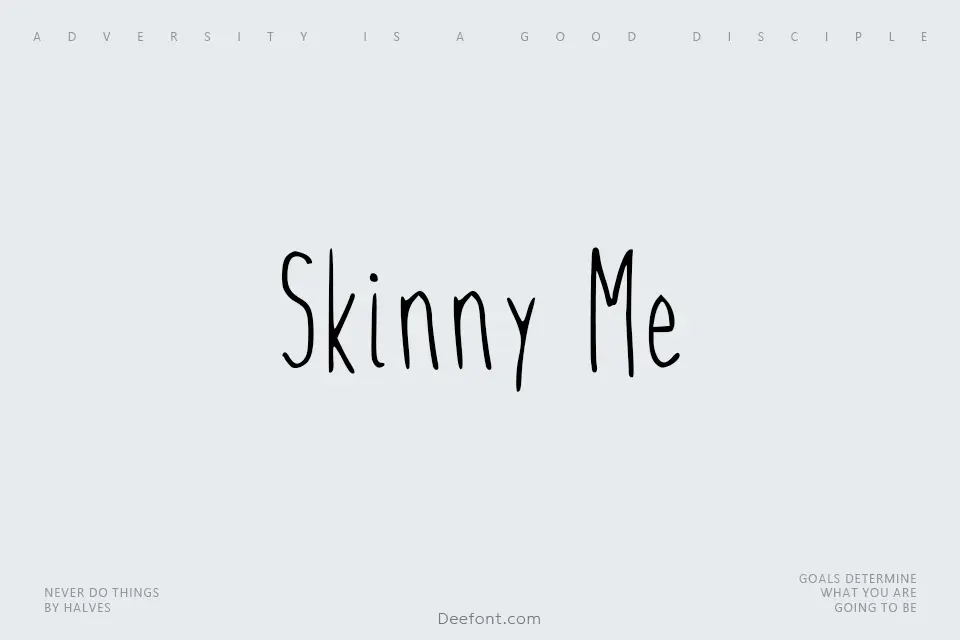
Skinny Me Font
Skinny Me is a delightful handwritten font featuring tall, slender letterforms with playful curves and informal elegance. Its light weight and narrow character width create a whimsical yet sophisticated aesthetic ideal for eye-catching logos, branding materials, and wedding invitations. The font's hand-drawn quality adds authentic charm to fashion magazines, lifestyle websites, greeting cards, and creative display applications. With support for accented characters, Skinny Me seamlessly adapts to multilingual projects while maintaining its approachable, contemporary appeal.